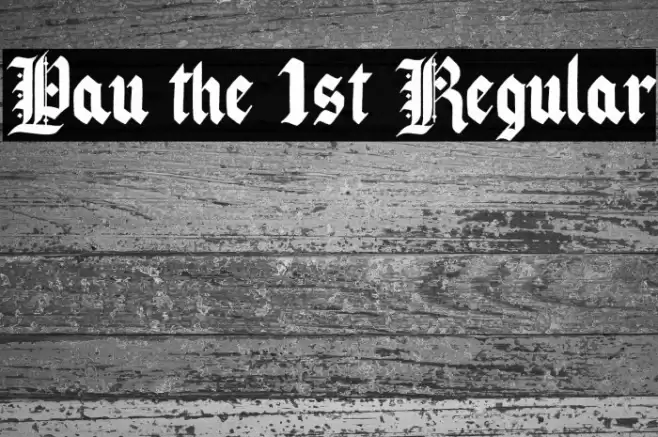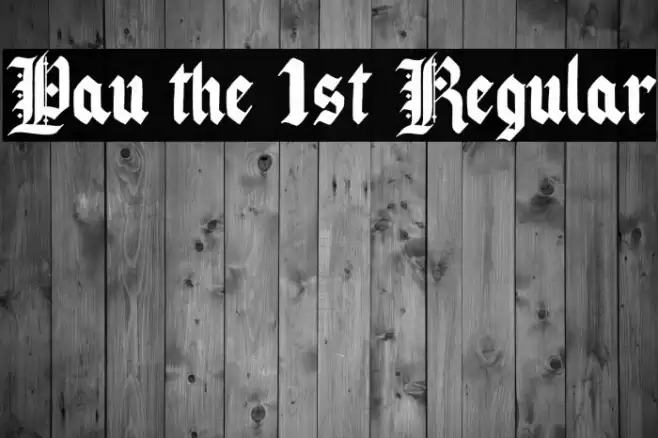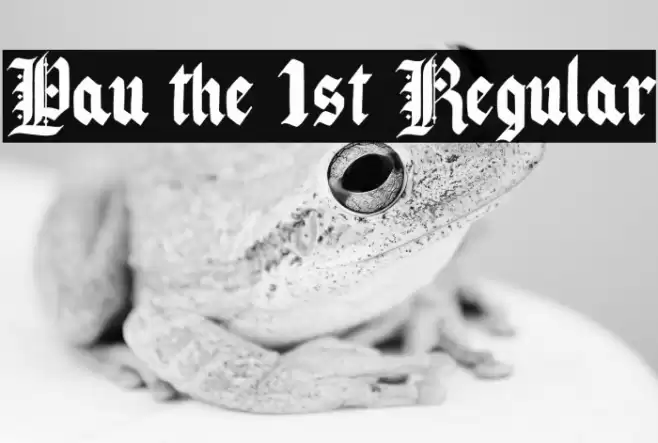
Pau the 1st Regular Font
Pau the 1st Regular Description
This font embodies the traditional and intricate style of Blackletter, characterized by its ornate and angular letterforms. The uppercase letters are particularly elaborate, with sharp edges and decorative flourishes that give a sense of historical elegance. The lowercase letters maintain a consistent style, offering a cohesive look across the alphabet. The numerals are bold and distinct, matching the overall aesthetic. Special characters are included, maintaining the same stylistic elements. This font is perfect for projects that require a touch of medieval or gothic flair.
An ornate Blackletter font with intricate, angular letterforms from Gothic fonts.
- Proposed Projects: Ideal for historical documents, gothic-themed designs, book covers, and event invitations.
- Contrast: High
- Overall Style: Vintage